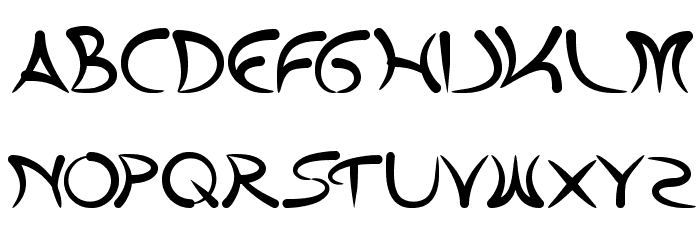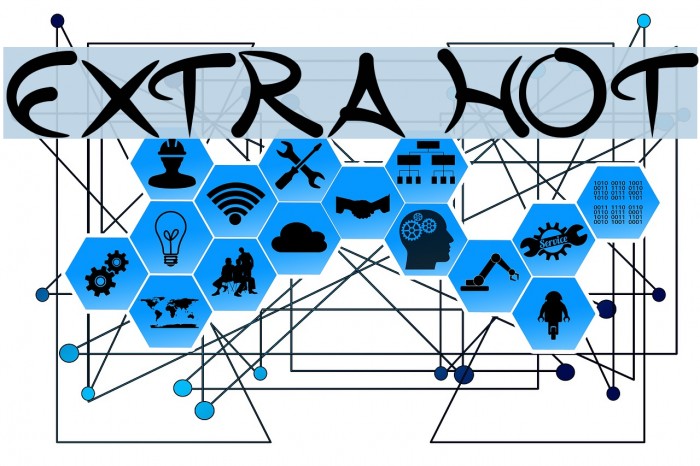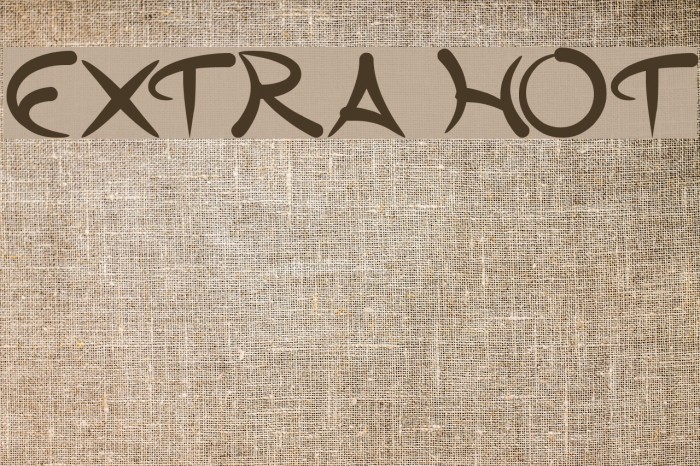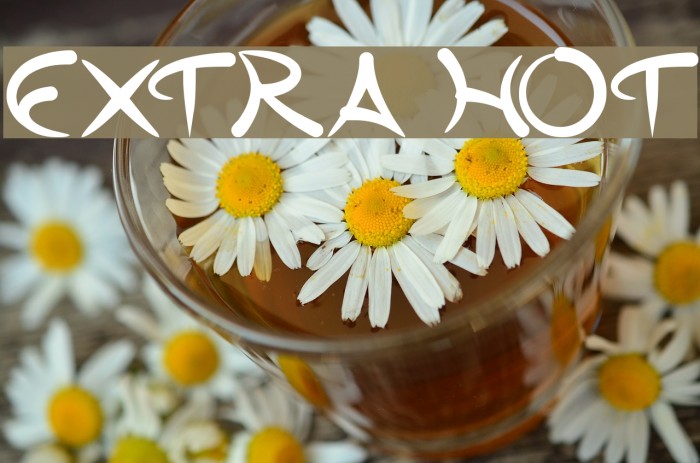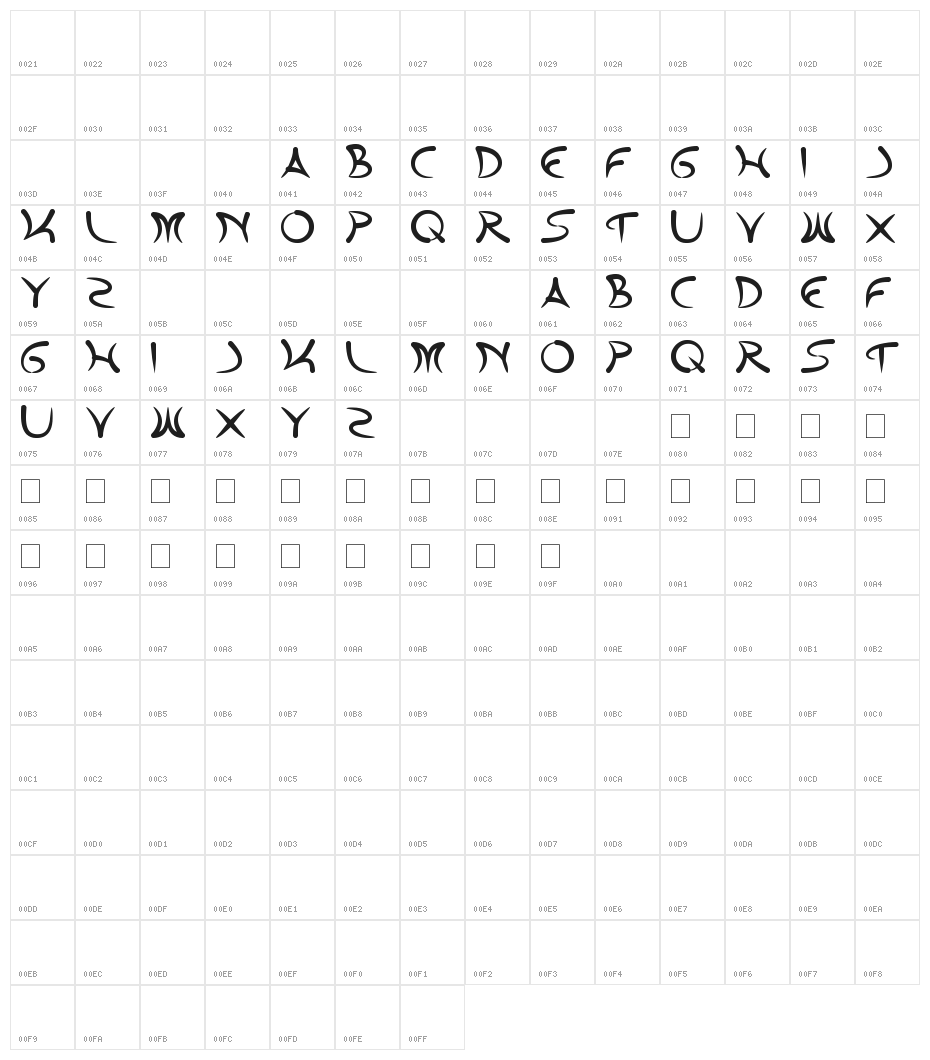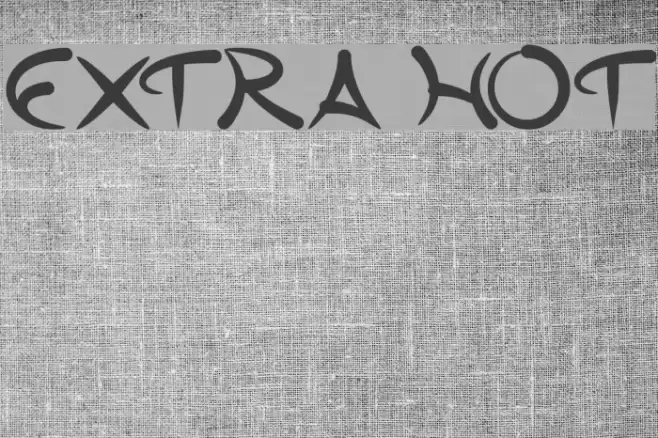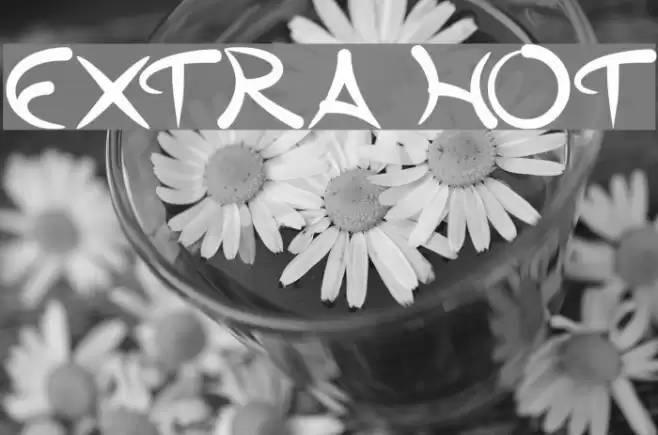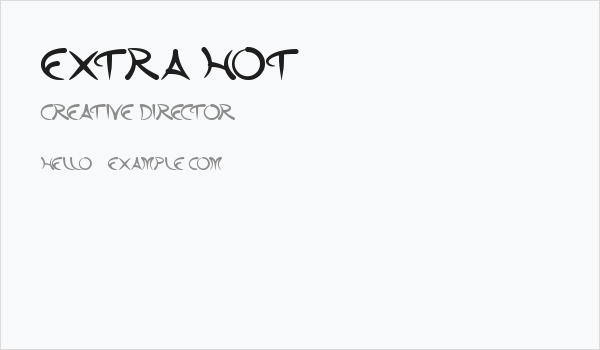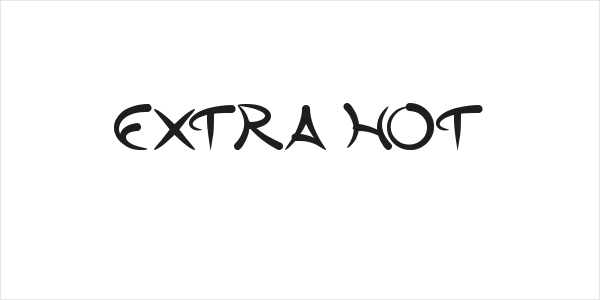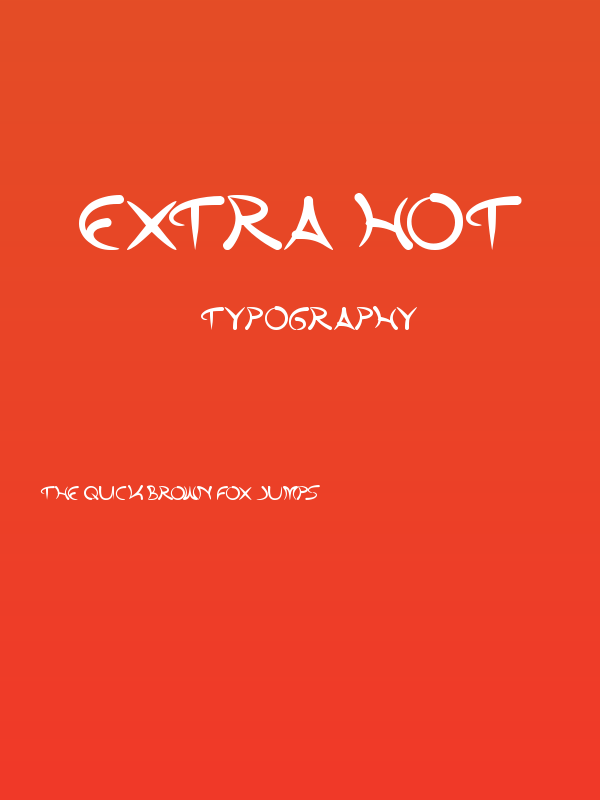
extra hot Font
This font features a unique and artistic design, characterized by its flowing, curvilinear strokes and dynamic shapes. The letters exhibit a sense of movement and energy, with each character having a distinct flair that sets it apart. The overall appearance is bold and expressive, making it ideal for creative and eye-catching designs. The font's style is reminiscent of calligraphic influences, yet it maintains a modern and edgy aesthetic. Its distinctive form makes it suitable for projects that require a strong visual impact.
A bold, artistic font with flowing, dynamic strokes and a modern, edgy style.
- Proposed Projects: Ideal for branding, posters, album covers, and any project requiring a strong visual impact.
- Overall Style: Modern, Decorative